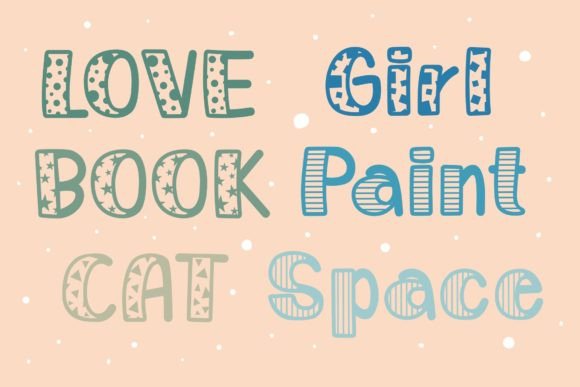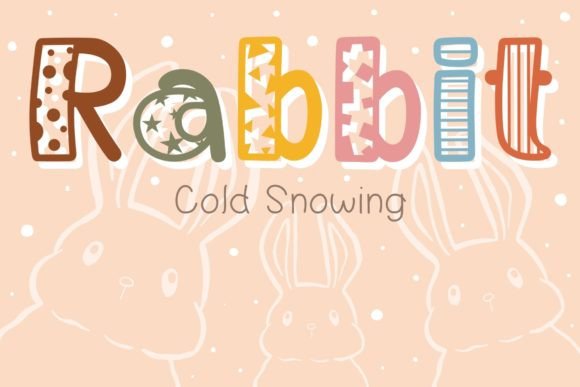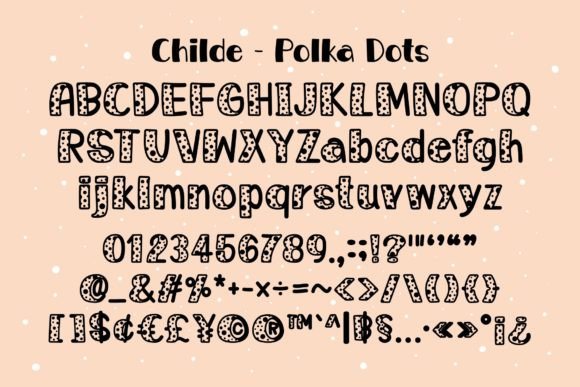
Childe Font
Childe is a cute decorative font in 6 styles. ( polka dots, stars, rectangles, squares, horizontal and vertical ) Bold fonts combined with different elements get new fonts that are cute and fun. This font is the perfect fit for all of your logos, branding, social media, crafty DIY projects, and much more!